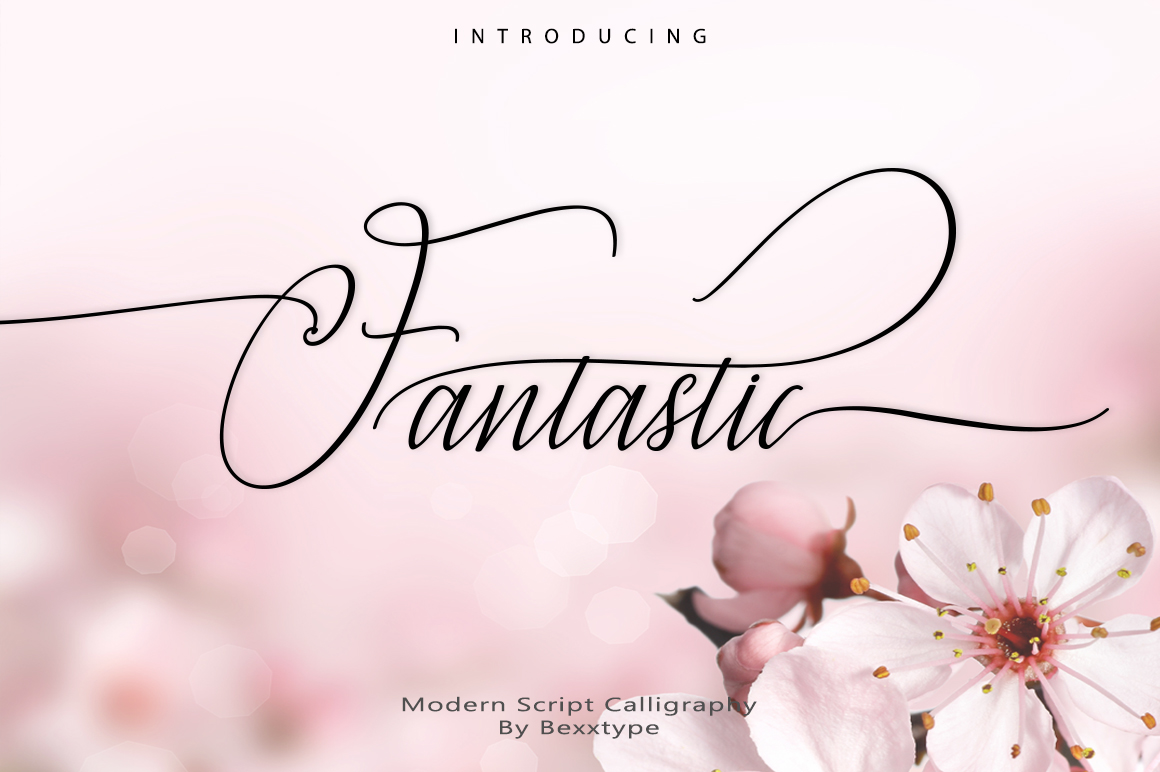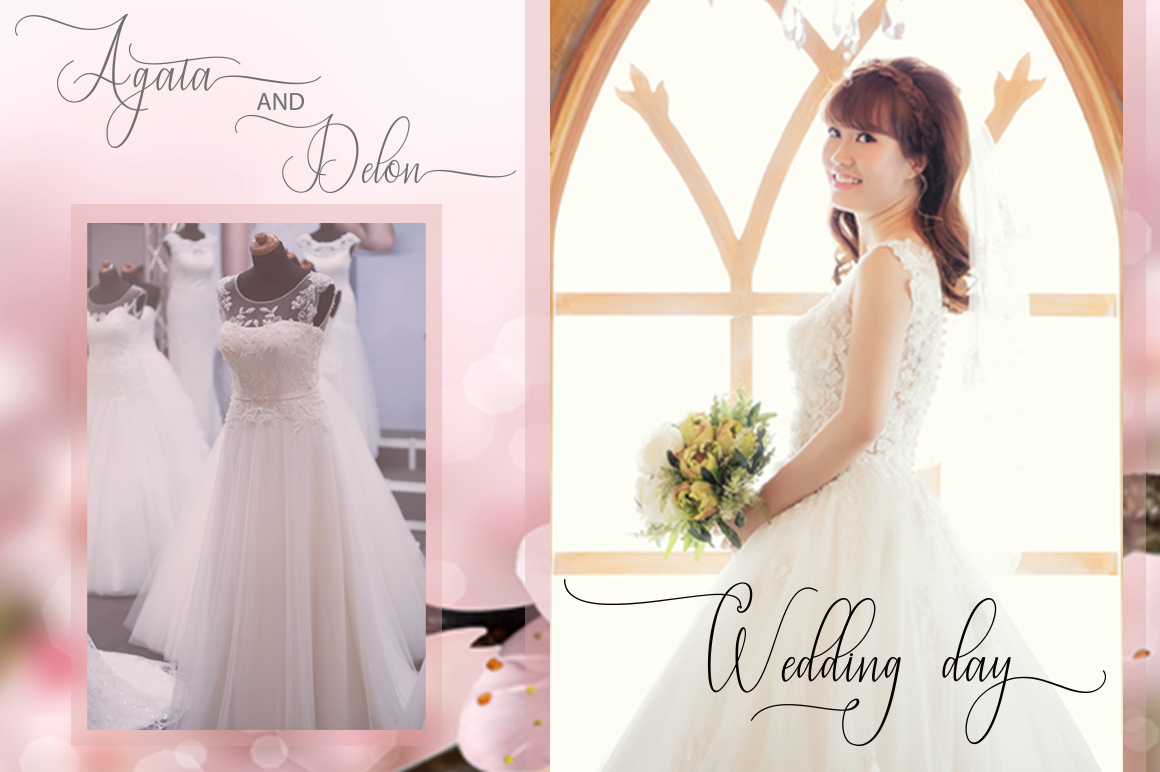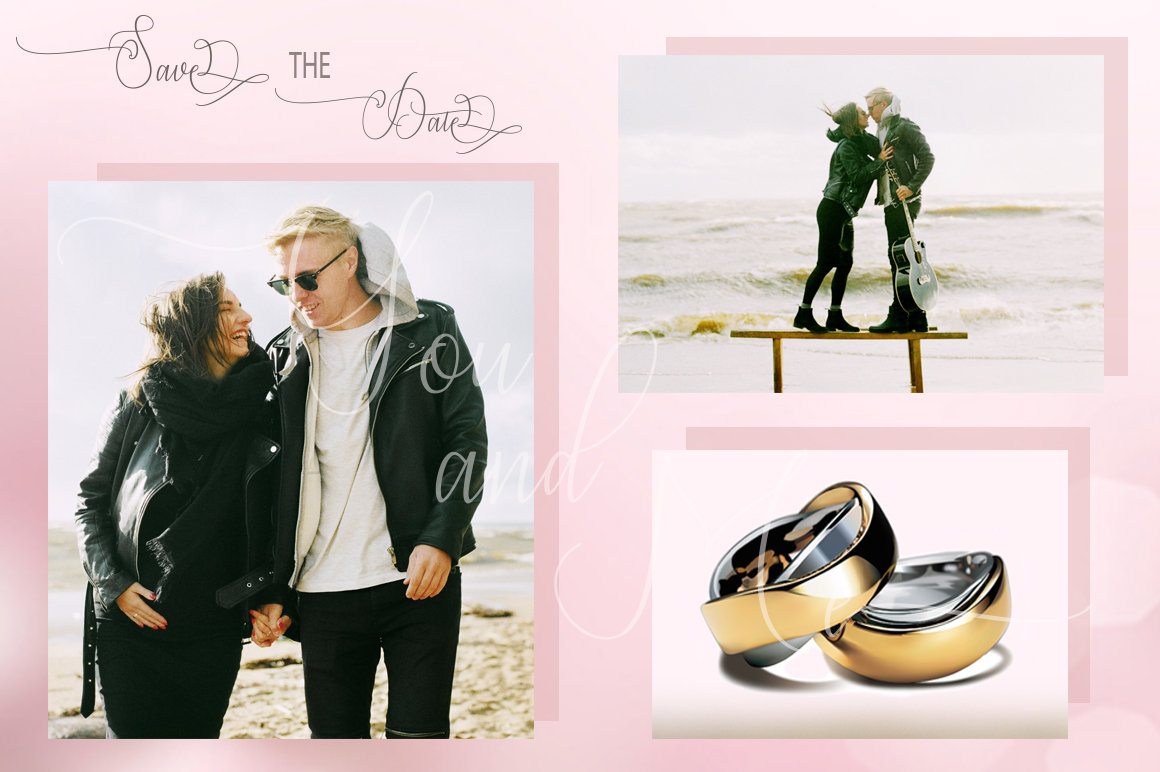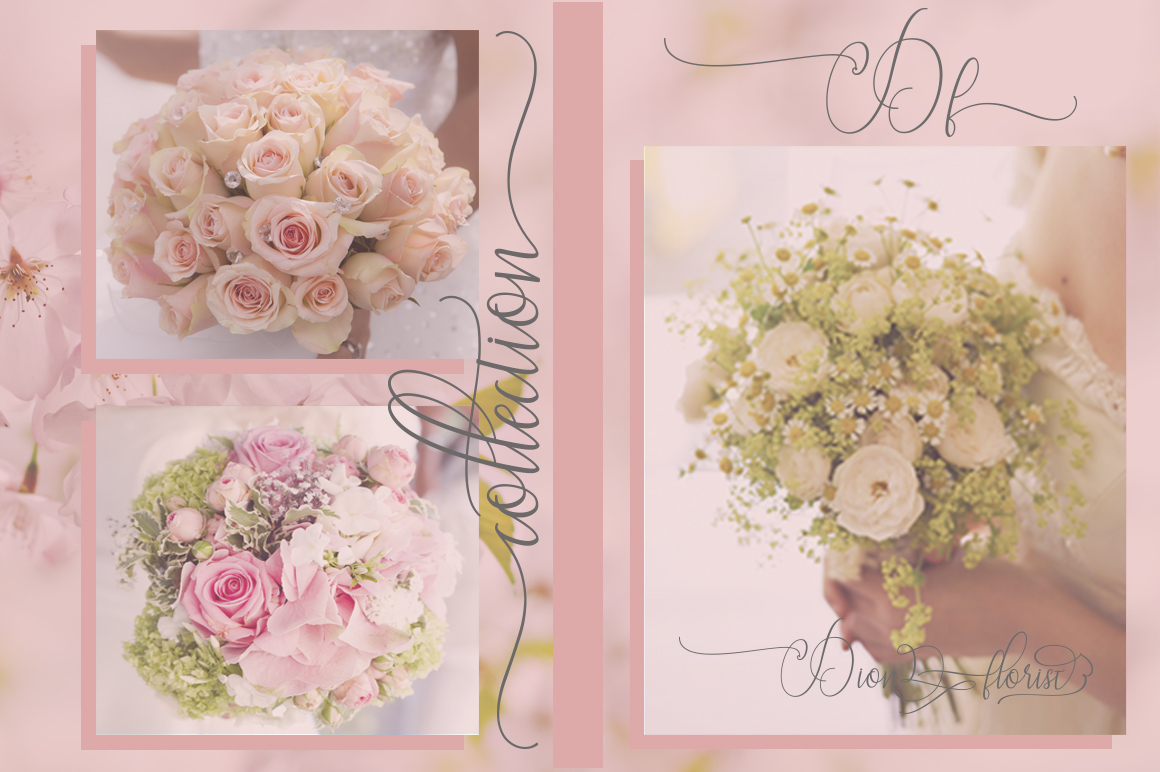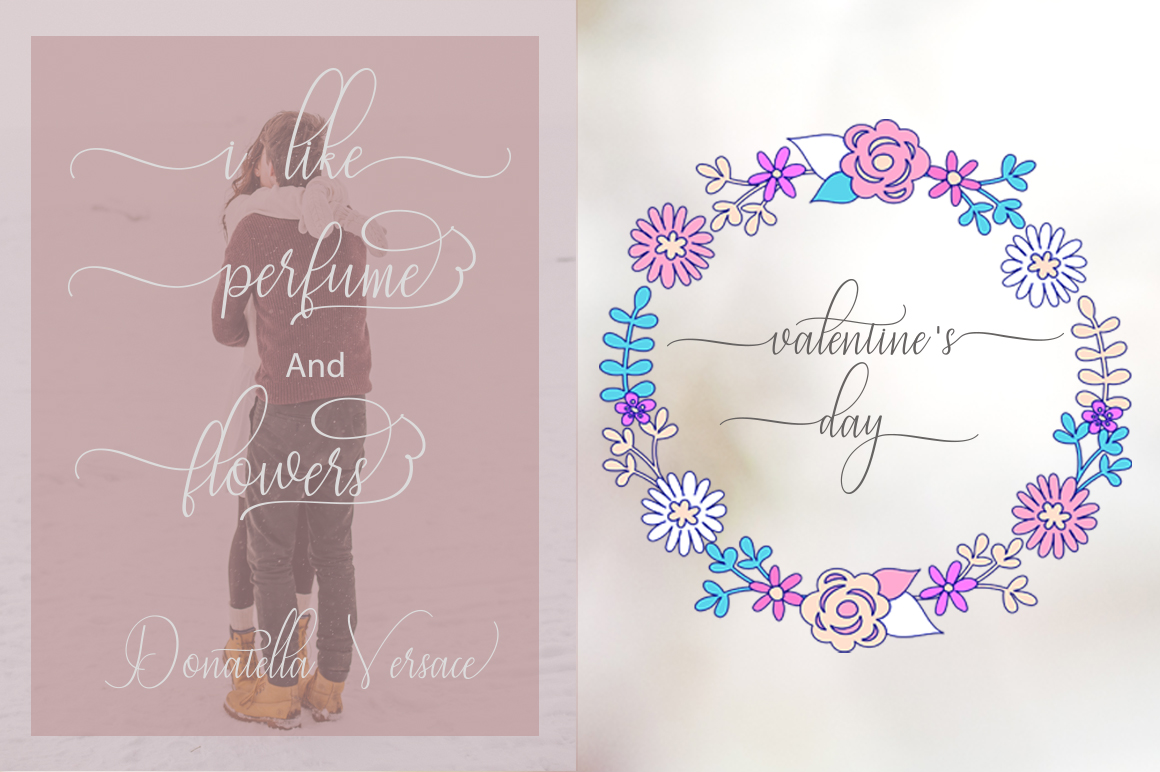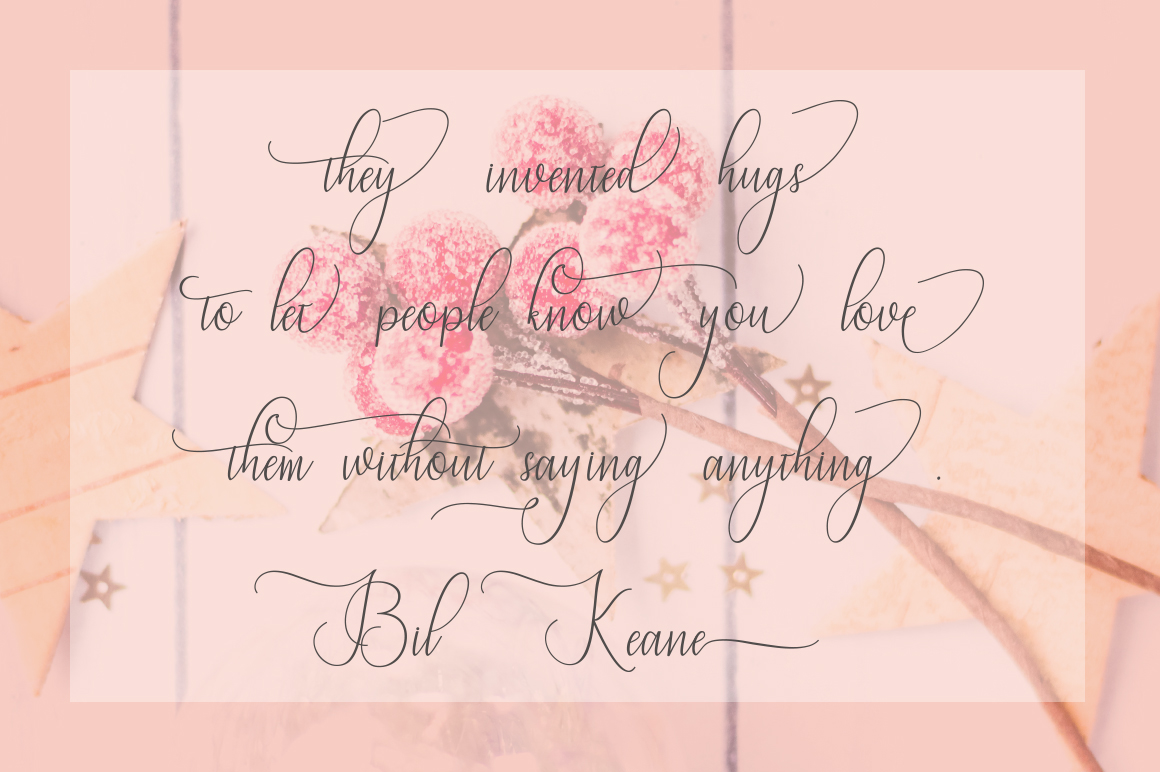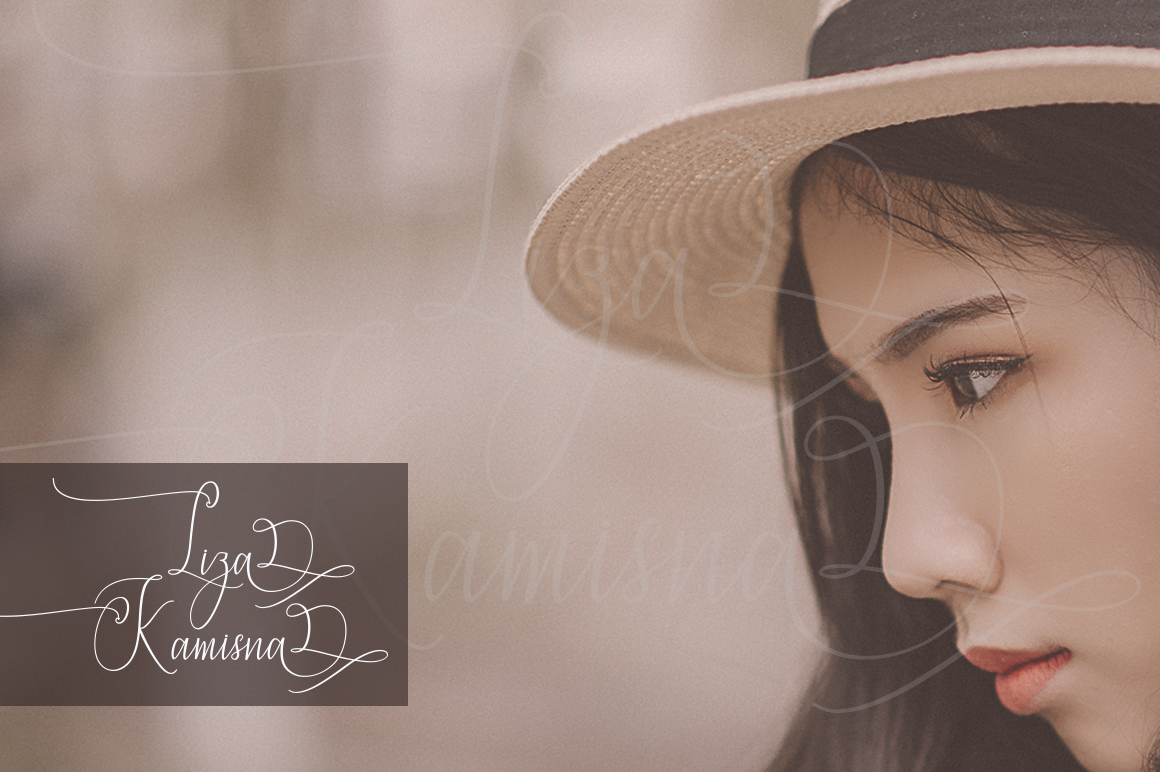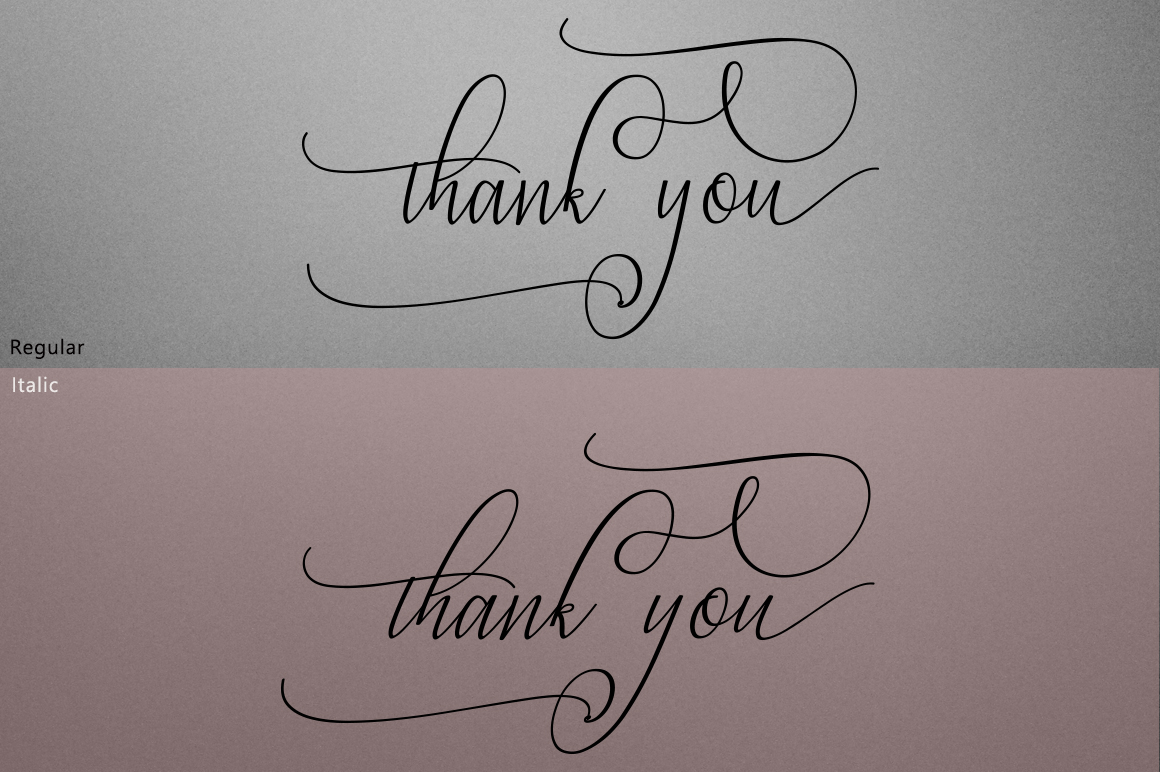
Fantastic Font
About Fantastic Font
Fantastic is a beautiful and romantic script, ideal for anchoring your designs in loveliness and romance! This delicate and embellished font has tons of swashes so you can have a luxurious and unique typography to anchor your headlines and displays.